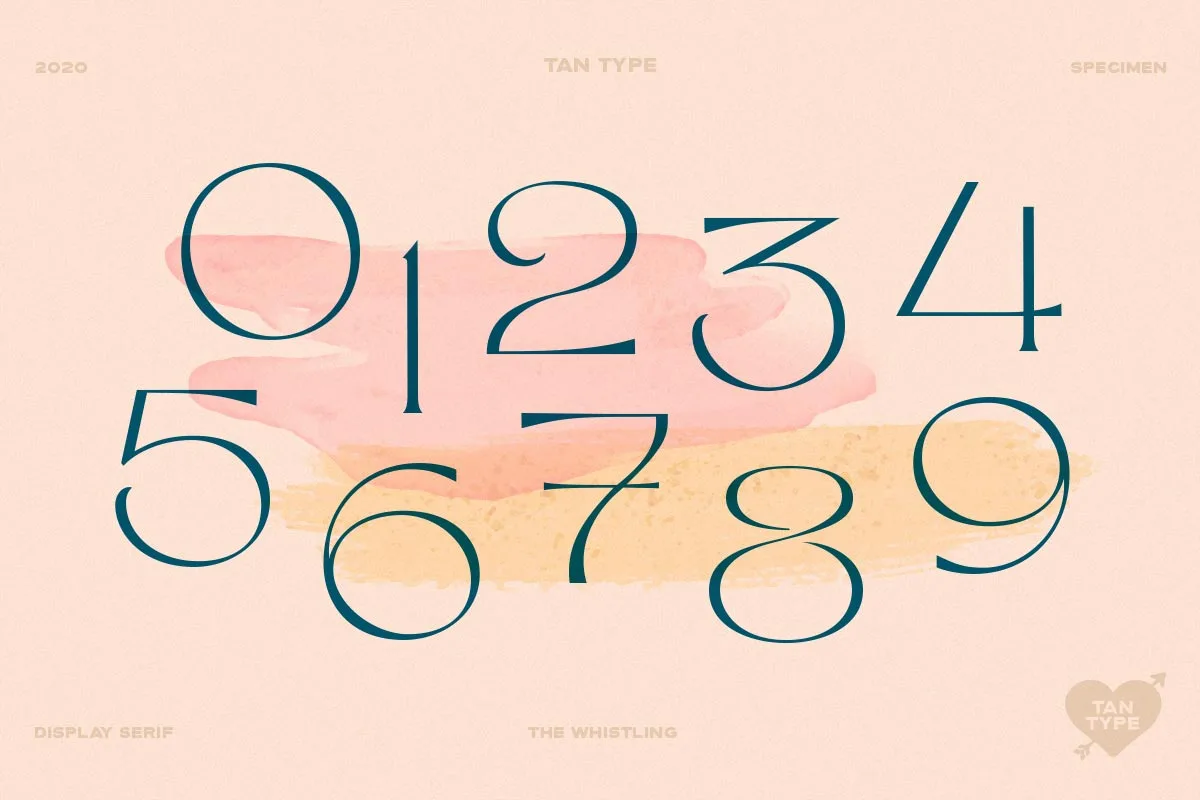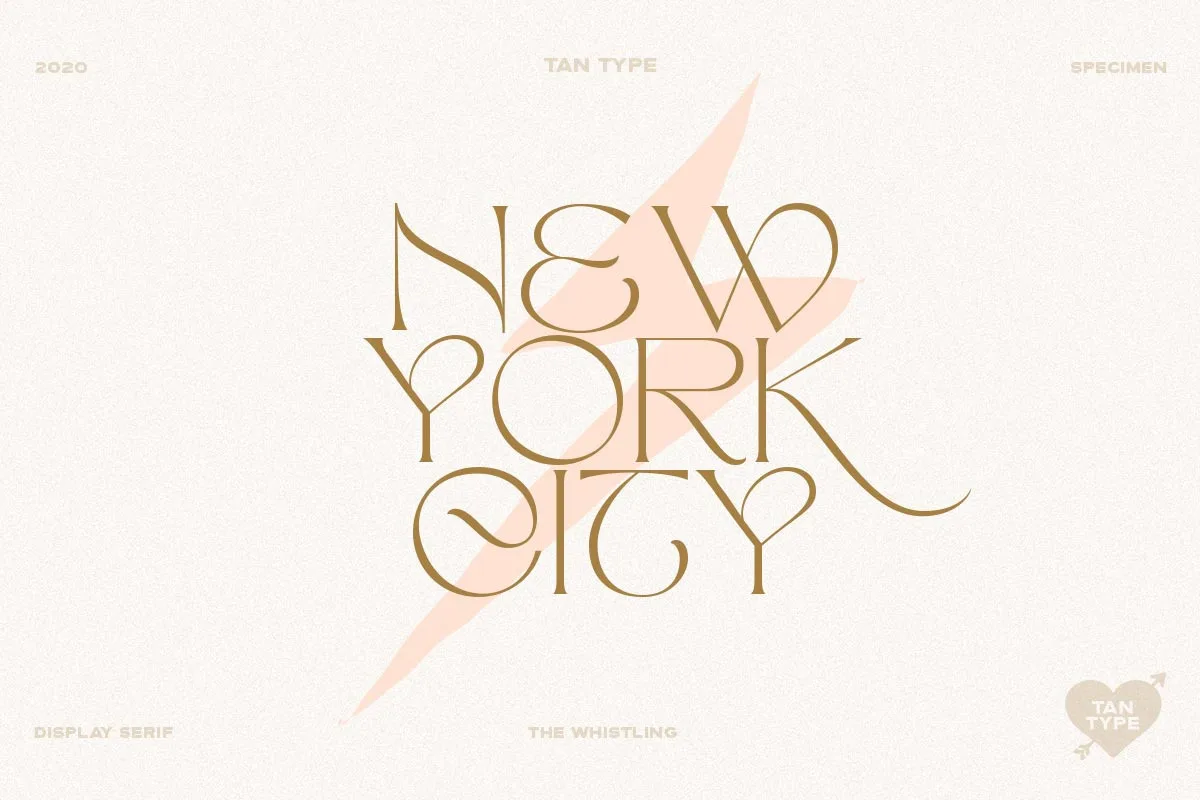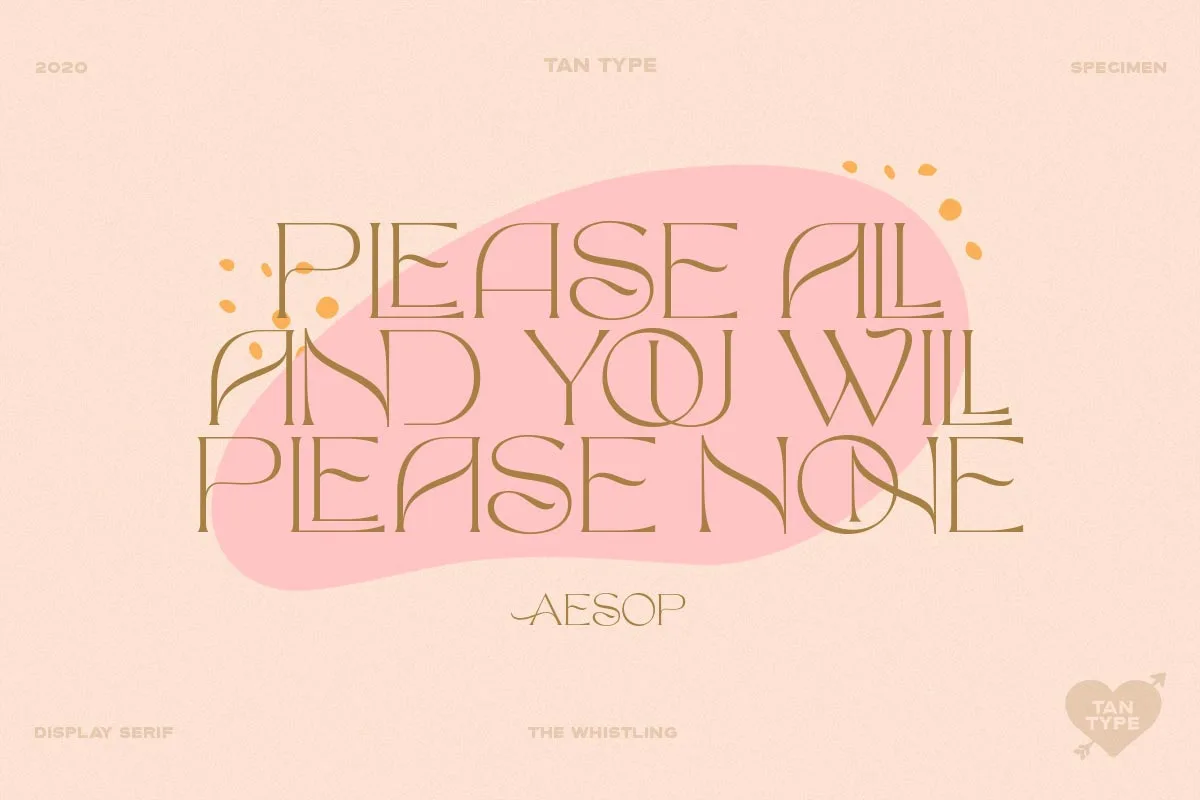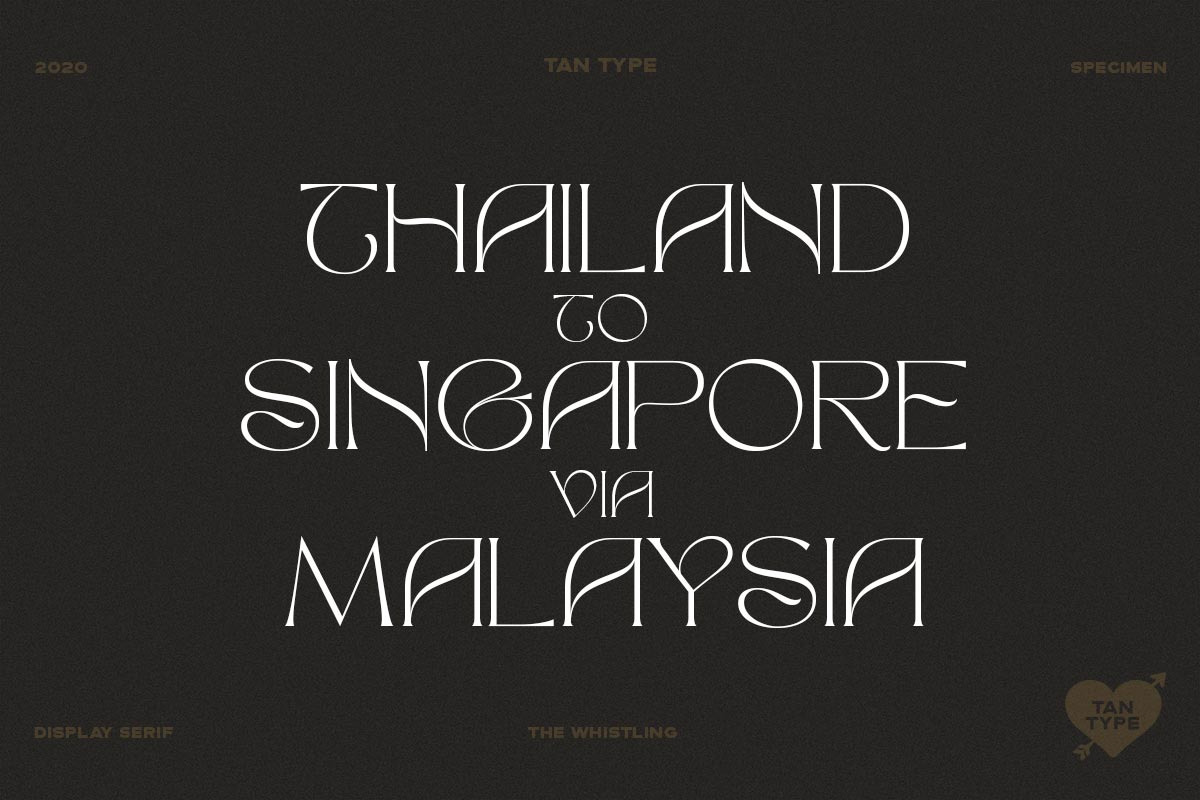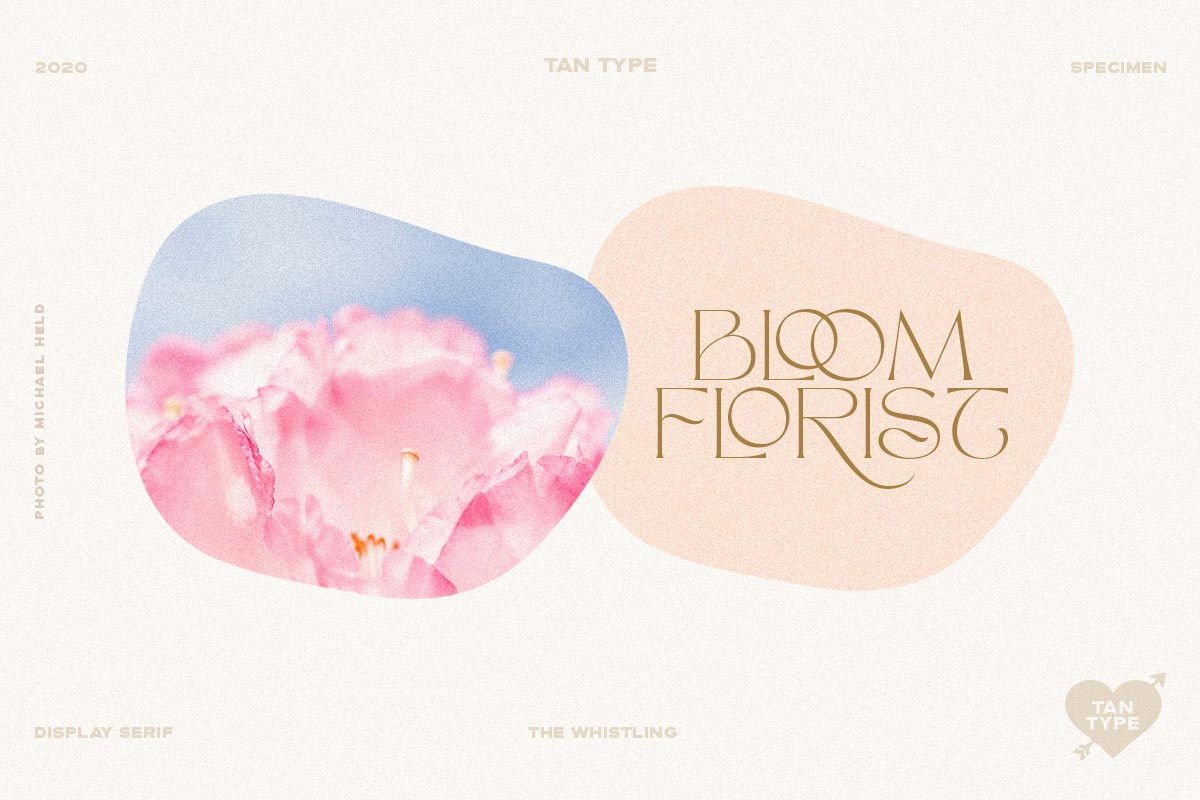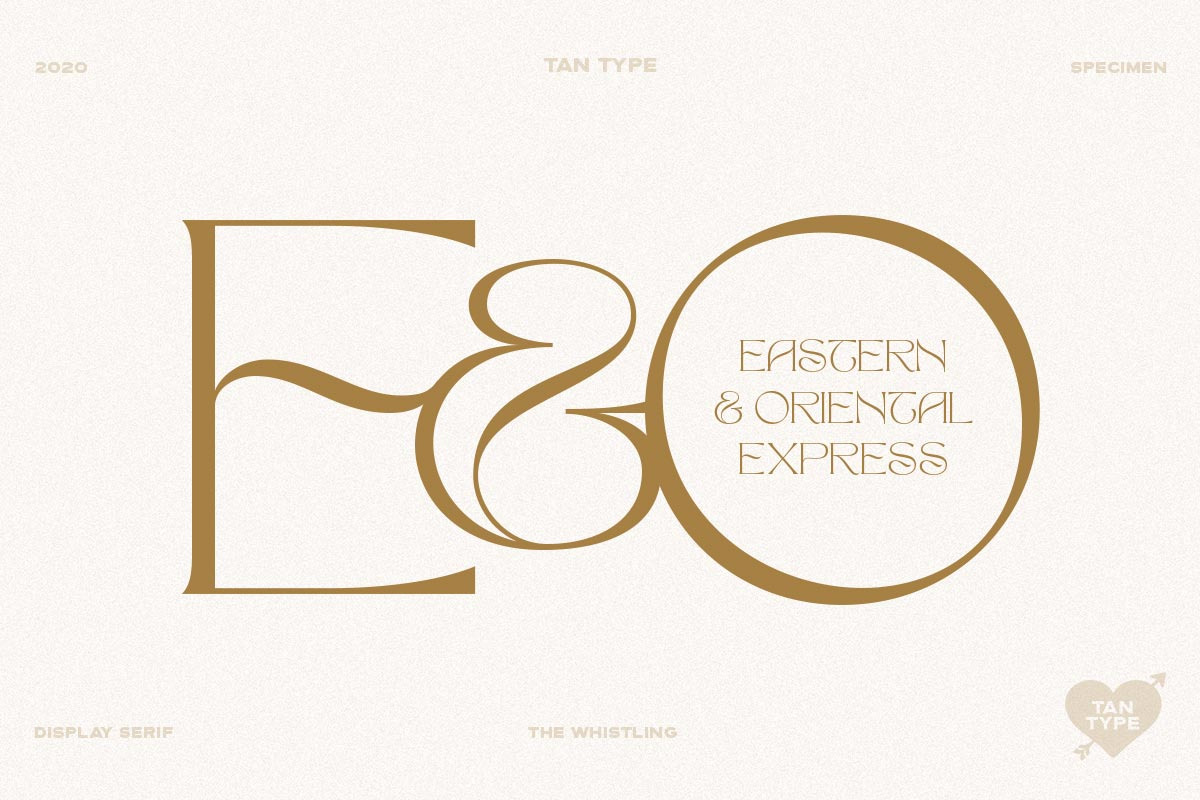
Tan Whistling Font is classy display serif font without being snobby. Suitable if you need if you want to add a bit of luxury or even quirks to your projects. It has over 50 ligatures and even more stylistic alternates. Limited multilingual support.